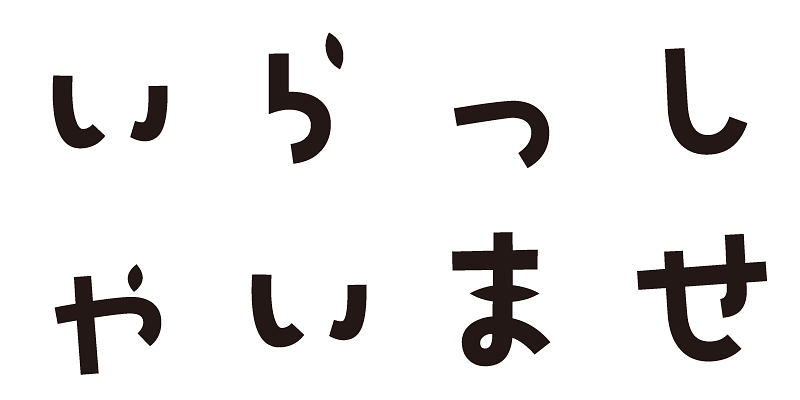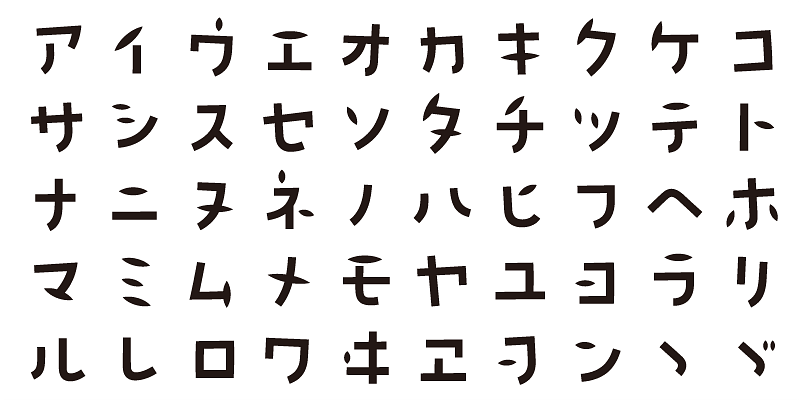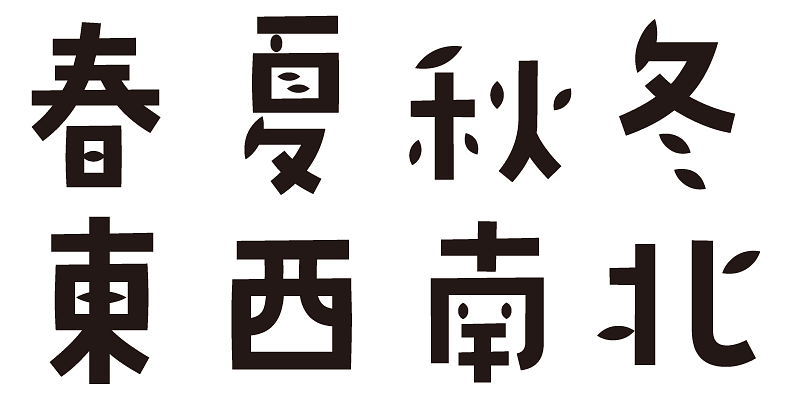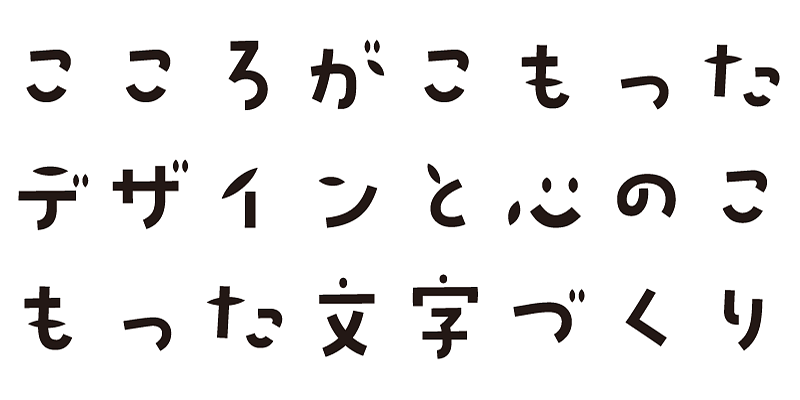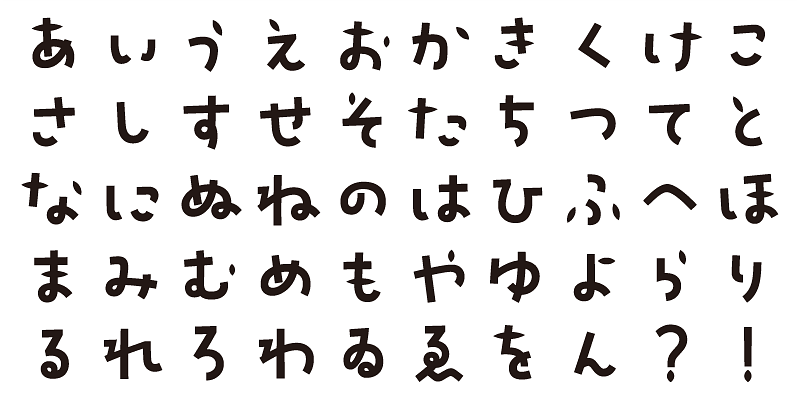
Comfortable breezes, gentle swaying, soft textures, quiet rhythms; this typeface breathes with openness, a design that feels airy.
This font includes top 1,000 kanji characters chosen from character frequency tables made by newspaper companies, publishing houses and linguistic research institutes, plus about 400 alphanumeric, kana characters and punctuation marks.
We design typefaces with the hope that they will add underlying meaning to words expressed. We wish the user to feel good and experience comfort and joy when using these typefaces.